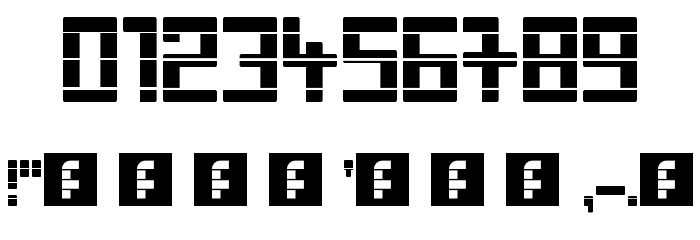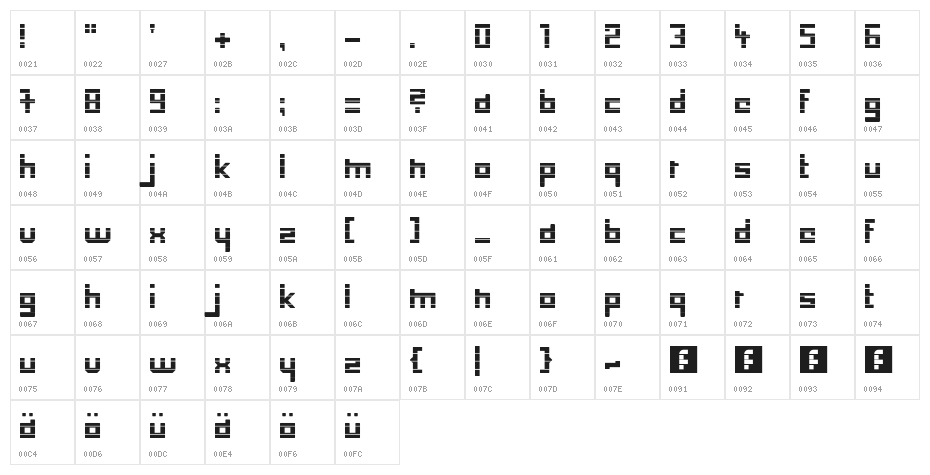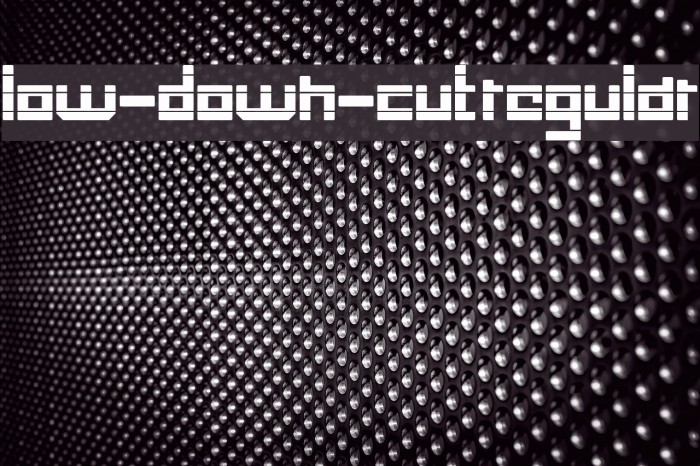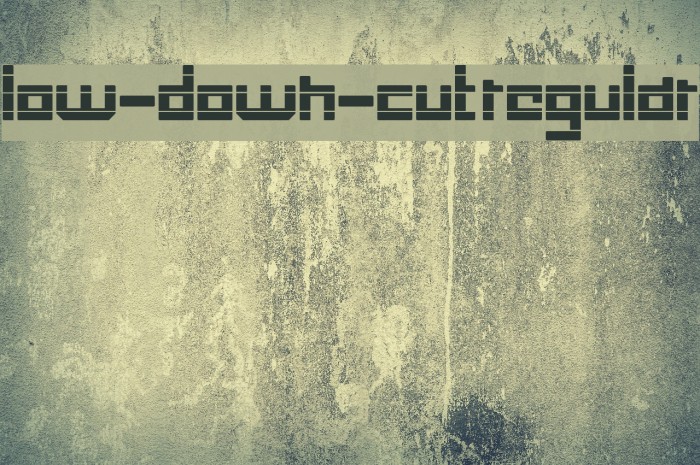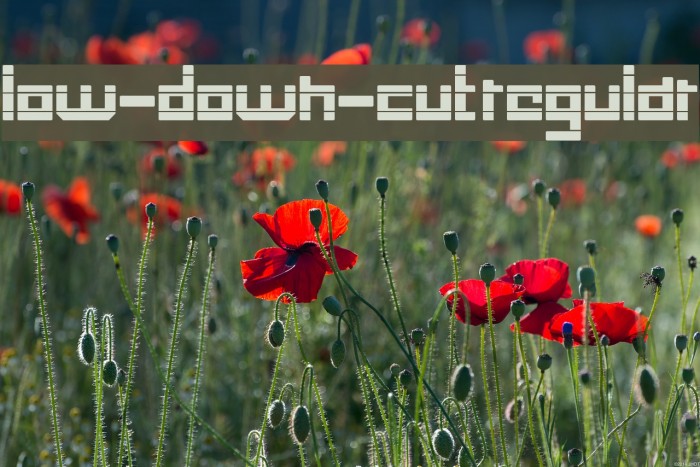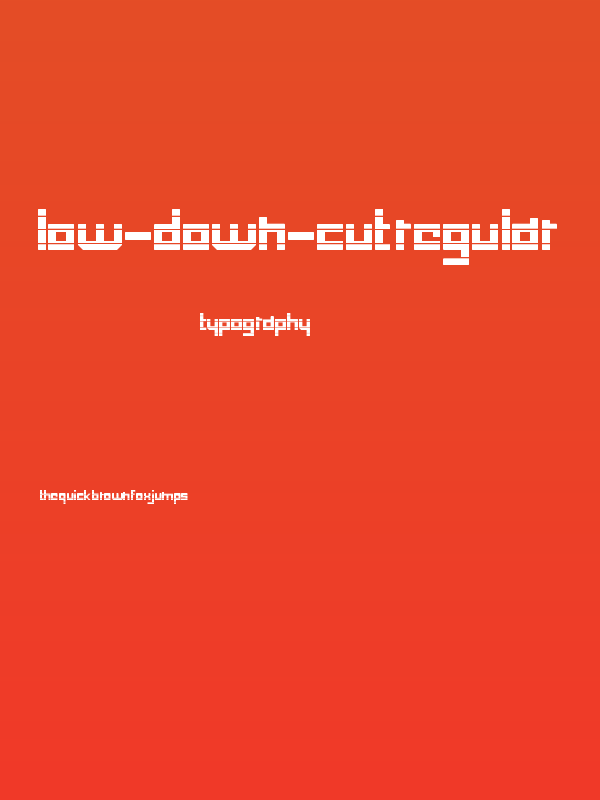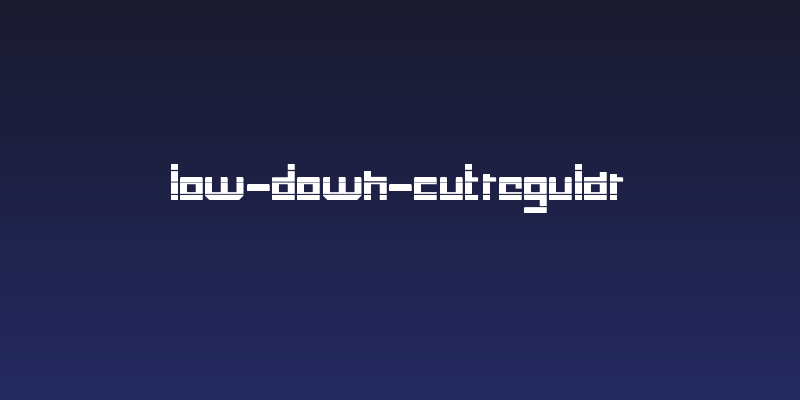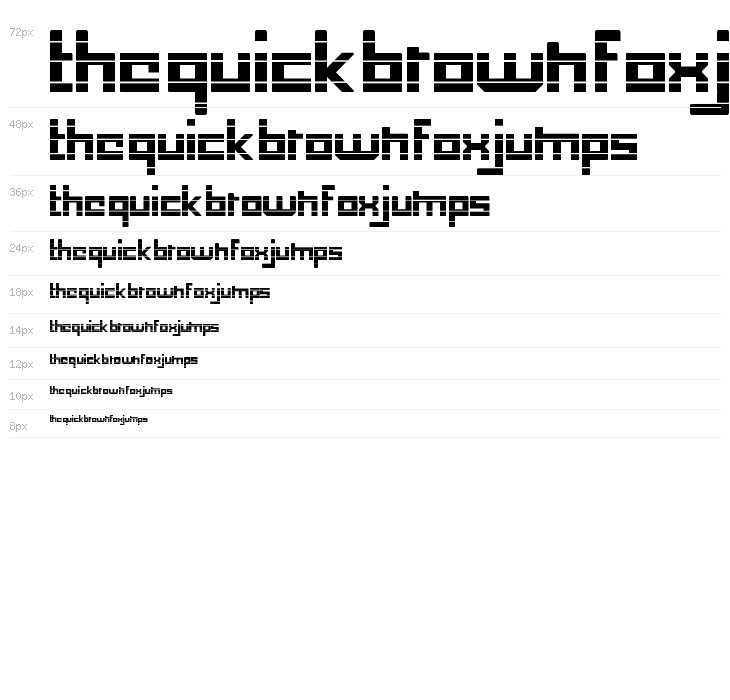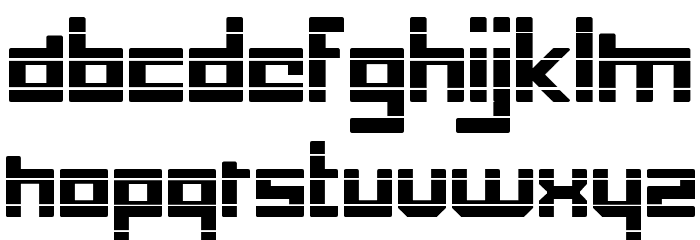
low-down-cut Regular Font
low-down-cut Regular Description
This font features a bold, geometric design with a distinct blocky appearance. Each character is constructed from a series of straight lines and right angles, creating a futuristic and digital aesthetic. The uniformity in height and width across characters gives it a monospaced feel, although it is not strictly monospaced. The font's thick strokes and sharp edges make it highly legible at larger sizes, while its unique style adds a modern, tech-inspired touch to any design. The numbers and special characters maintain the same blocky style, ensuring consistency throughout the typeface.
| Proposed Projects | Ideal for tech-related branding, digital art projects, video game interfaces, and futuristic-themed posters. |